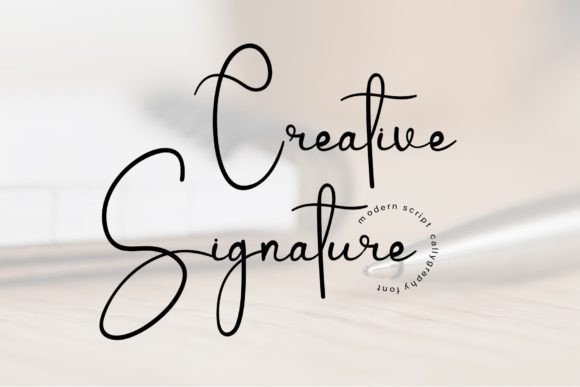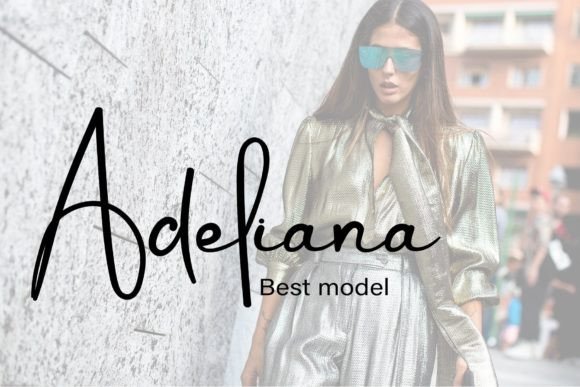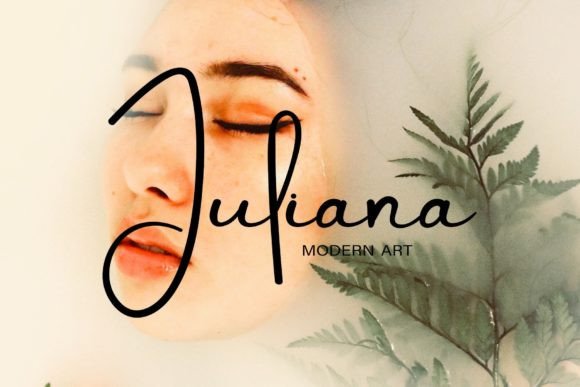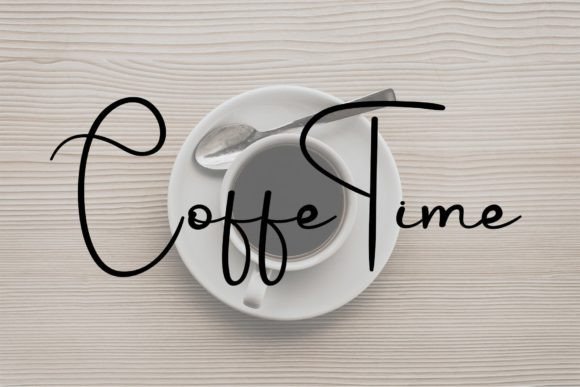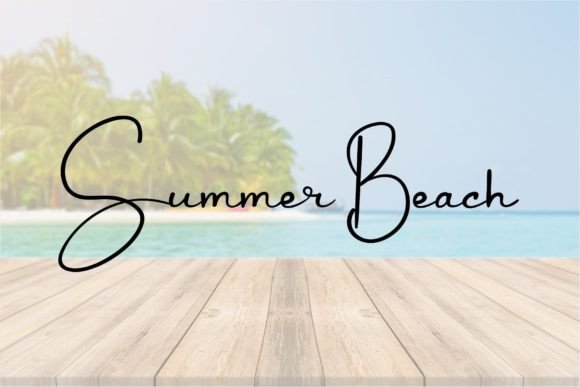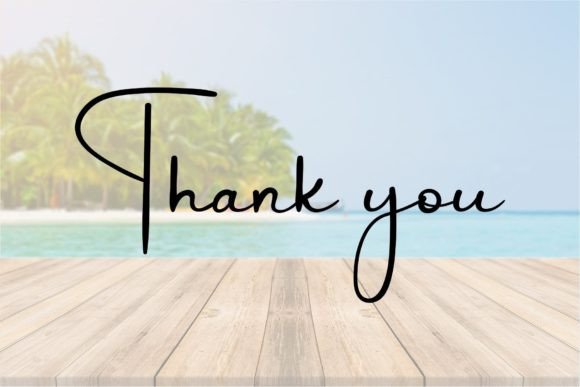
Creative Signature Font
Introducing Creative Signature, a sweet and beautiful handwritten font that adds a touch of luxury to your design projects. This font features characters that dance along the baseline, creating a dynamic and elegant appearance. Whether you’re working on invitations, branding, or any other creative project, Creative Signature is designed to bring a luxurious spark to your designs.
The handwritten style of Creative Signature adds a personal and authentic touch to your text. The characters dancing along the baseline create a sense of movement and sophistication, making it suitable for a variety of design contexts.
Imagine using Creative Signature for a wedding invitation where its elegant script enhances the romantic and luxurious atmosphere. In branding, this font adds a touch of sophistication, making your logo or letterforms stand out with a high-end aesthetic.
For any design project that requires a luxurious spark, Creative Signature is ready to elevate your creations. Its dynamic and beautiful characters make it a valuable asset for projects that aim to convey a sense of elegance and style.
Whether you’re working on print materials, digital graphics, or any other creative endeavor, Creative Signature brings a level of luxury and charm that enhances the overall visual impact of your projects.
In conclusion, Creative Signature is more than just a font; it’s a design tool that brings a sweet and luxurious touch to your creative endeavors. Whether you’re creating invitations, branding, or other designs, Creative Signature is prepared to be the beautiful handwritten font that adds a touch of elegance to your work.